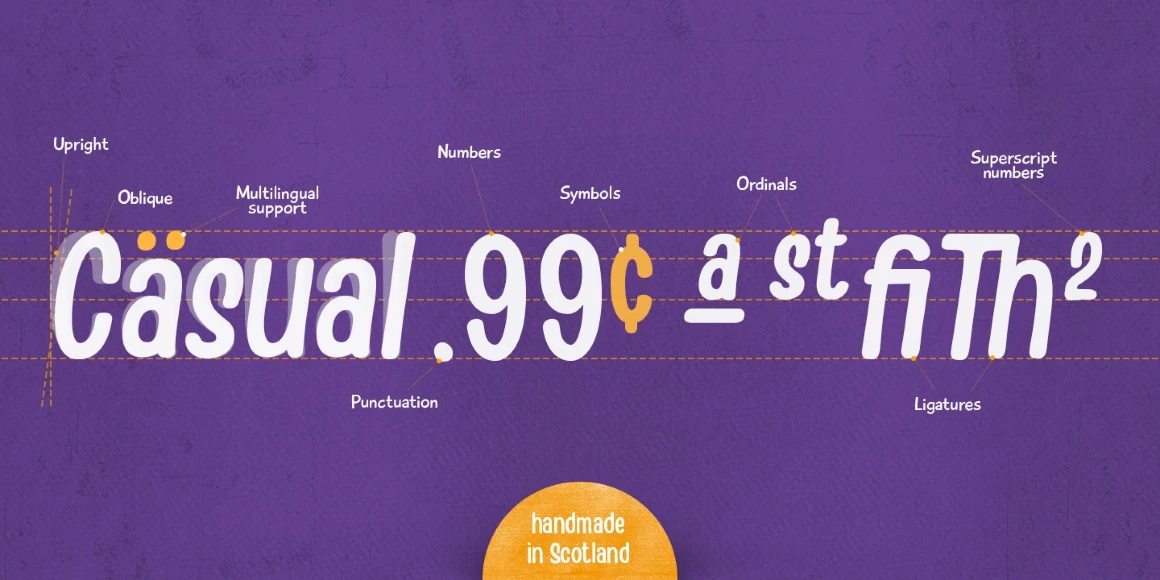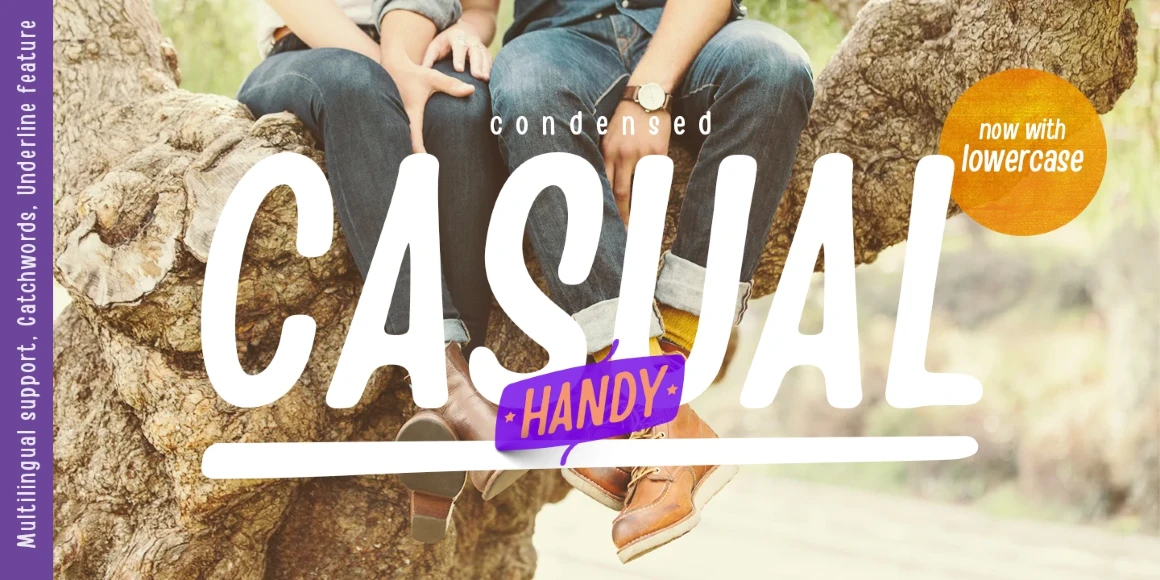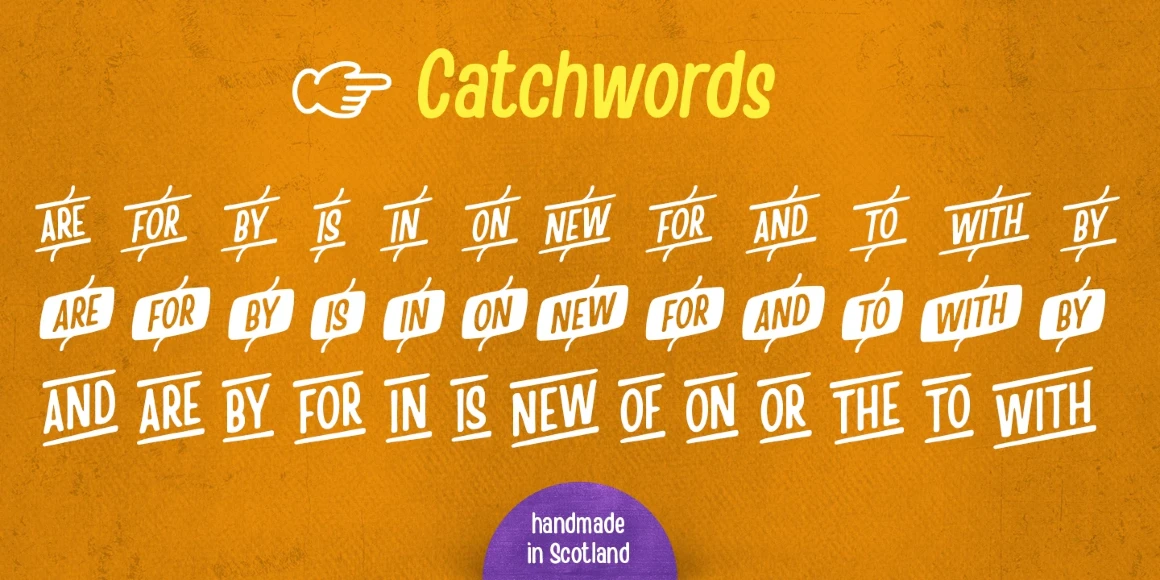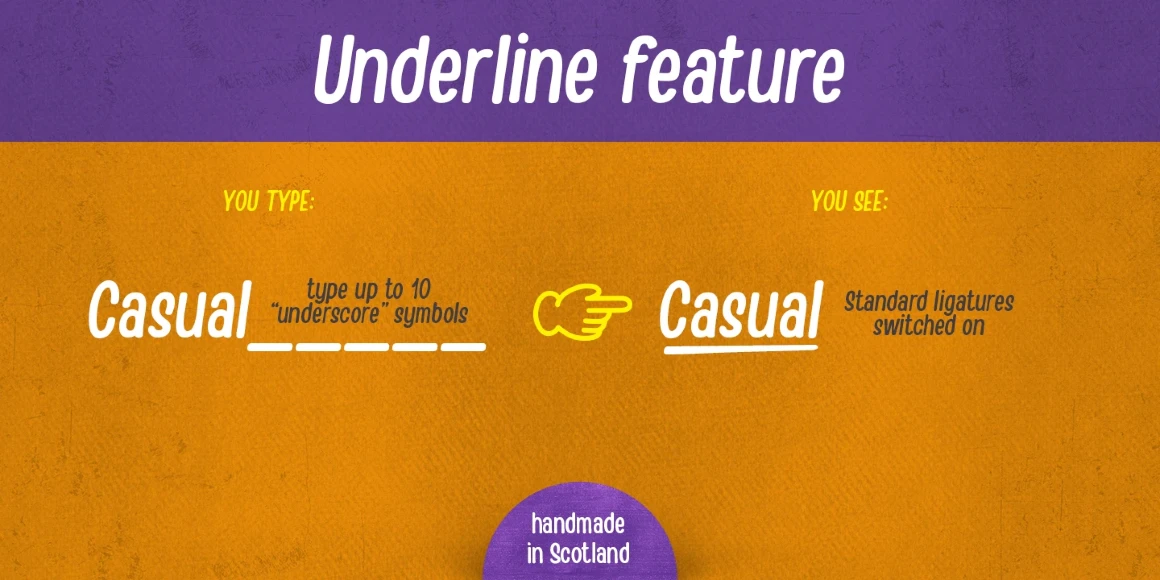
Handy Sans Condensed
By Elena Genova
Handy Sans Condensed Distressed
Handy Sans Condensed Regular
Handy Sans Condensed Round Fill
Handy Sans Condensed Striped Shadow
Handy Sans Condensed Distressed Oblique
Handy Sans Condensed Regular Oblique
Handy Sans Condensed Round Oblique
Handy Casual Condensed is an informal brush-written sans inspired by hand lettering found in the poster of the 1960s. Perfect for playing the lead or supporting role on billboards, posters, signage, magazines and books, packaging, and greeting cards. Handy Casual Condensed combines unique character with tons of features, including ligatures, catchwords, stylistic alternates, and an underline feature.